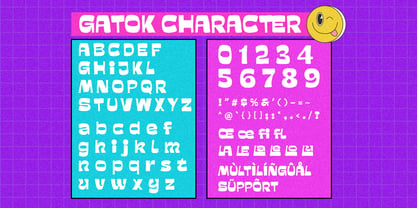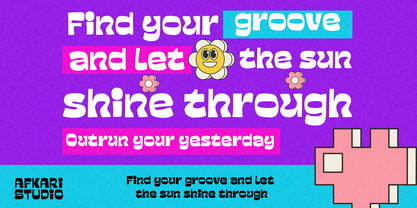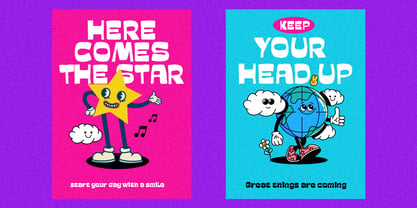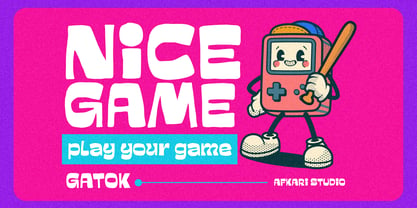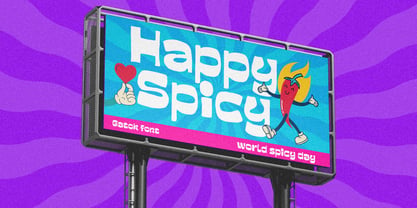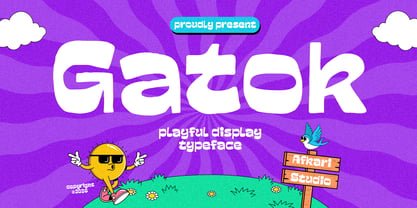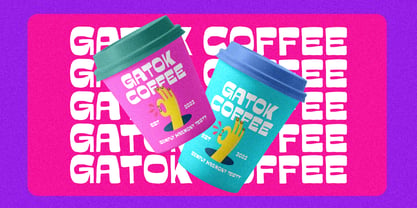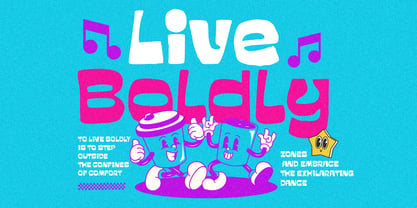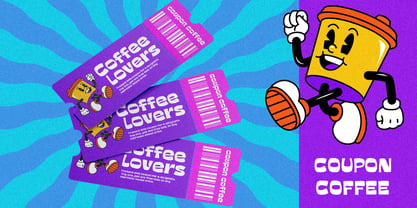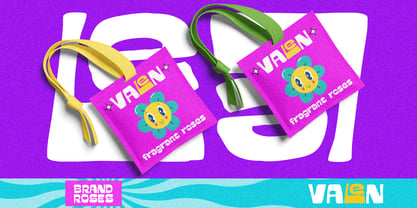
Gatok
by Afkari Studio
The Gatok Font Family was designed by Musthafa Kamal Emje and published by Afkari Studio. Gatok contains 1 styles. More about this family
Gatok is a playful display typeface designed to bring fun, creativity, and bold personality into your designs. Featuring quirky shapes, lively proportions, and expressive character forms, this font delivers a cheerful and eye-catching appearance that instantly grabs attention.
With its unique and energetic style, Gatok is perfect for projects that need a friendly and creative vibe. The playful structure creates a handcrafted and imaginative feel while maintaining strong readability, making it suitable for both digital and print applications.
Whether you're creating branding for kids products, social media graphics, posters, packaging, or fun merchandise, Gatok adds a vibrant and memorable touch that makes your typography stand out.
Highlighted Features:
- Compete set of uppercase and lowercase letters, numerals, and punctuation
- Fun and playful display style with unique character shapes
- Smooth readability for headlines and creative layouts
- Multilingual support includes characters like ä, ö, ü, Ä, Ö, Ü, ß, ¿, and ¡
Bring fun and personality into your typography with Gatok—a playful display typeface designed to make your creative projects feel bold, cheerful, and unforgettable.